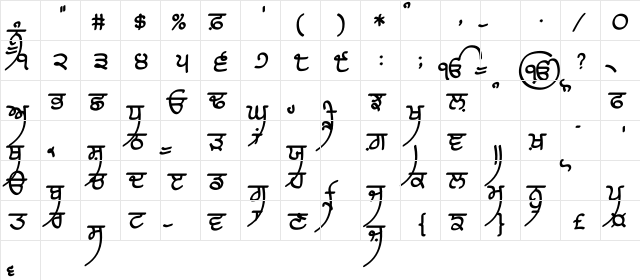
Raaj 7 Bold Bold
| Foundry | Paul Alan Grosse |
| Designer | Paul Alan Grosse |
Design Context for Raaj 7 Bold Typeface
Raaj 7 Bold offers clean, dependable letterforms without strong stylistic allegiance, making it a practical choice for designers who need flexibility. Its bold stroke weight gives it real presence on the page.